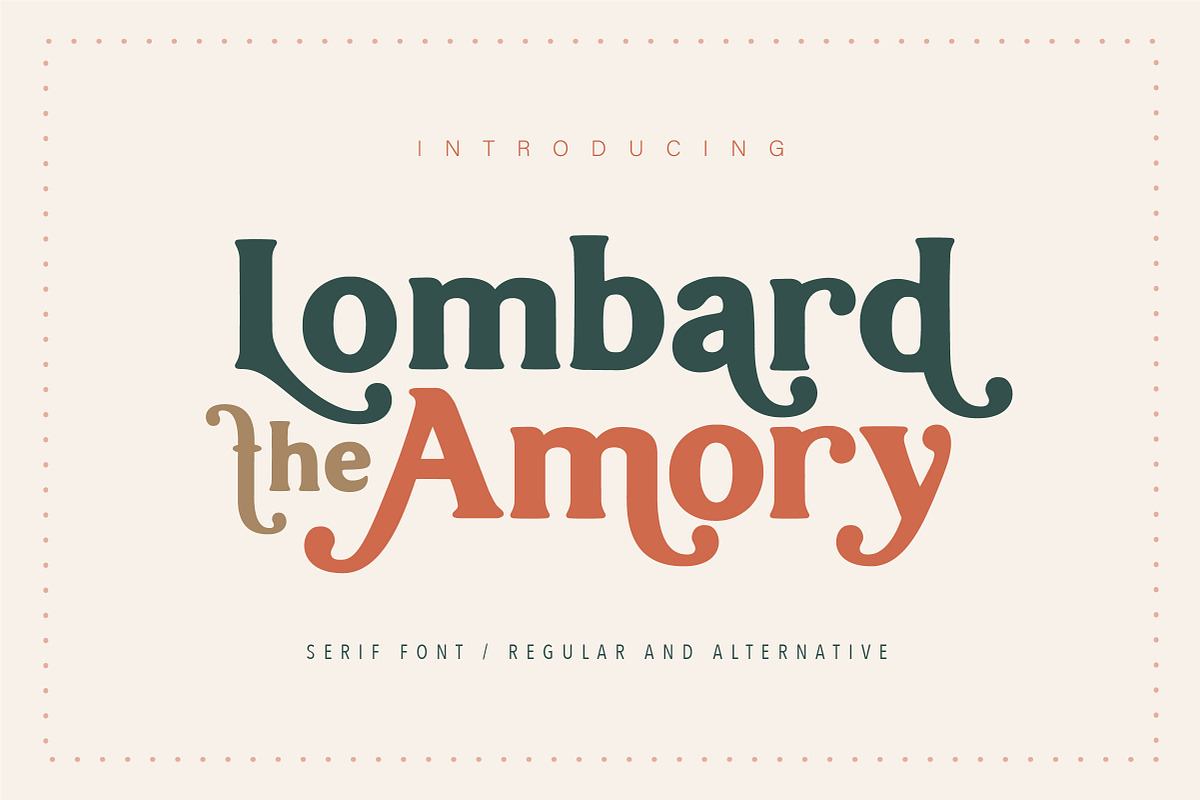
Add elegance and strength to your designs with Lombard Font Free Download — a sleek and powerful typeface designed to make a statement. With its clean lines and modern aesthetic, Lombard is perfect for branding, logo creation, editorial design, posters, and any project that requires a professional yet stylish font.
Lombard combines bold letterforms with refined details, offering both clarity and sophistication. It includes uppercase and lowercase letters, punctuation, numerals, and multilingual support — giving you everything you need to create compelling, high-impact designs.